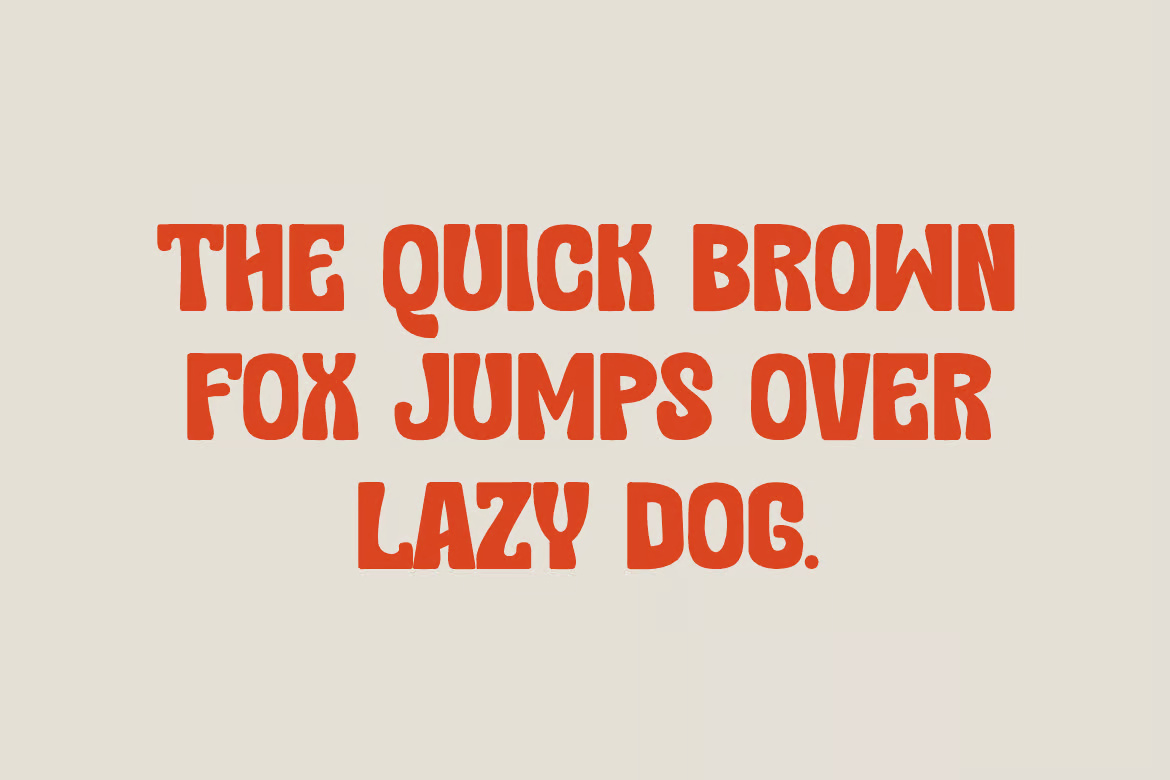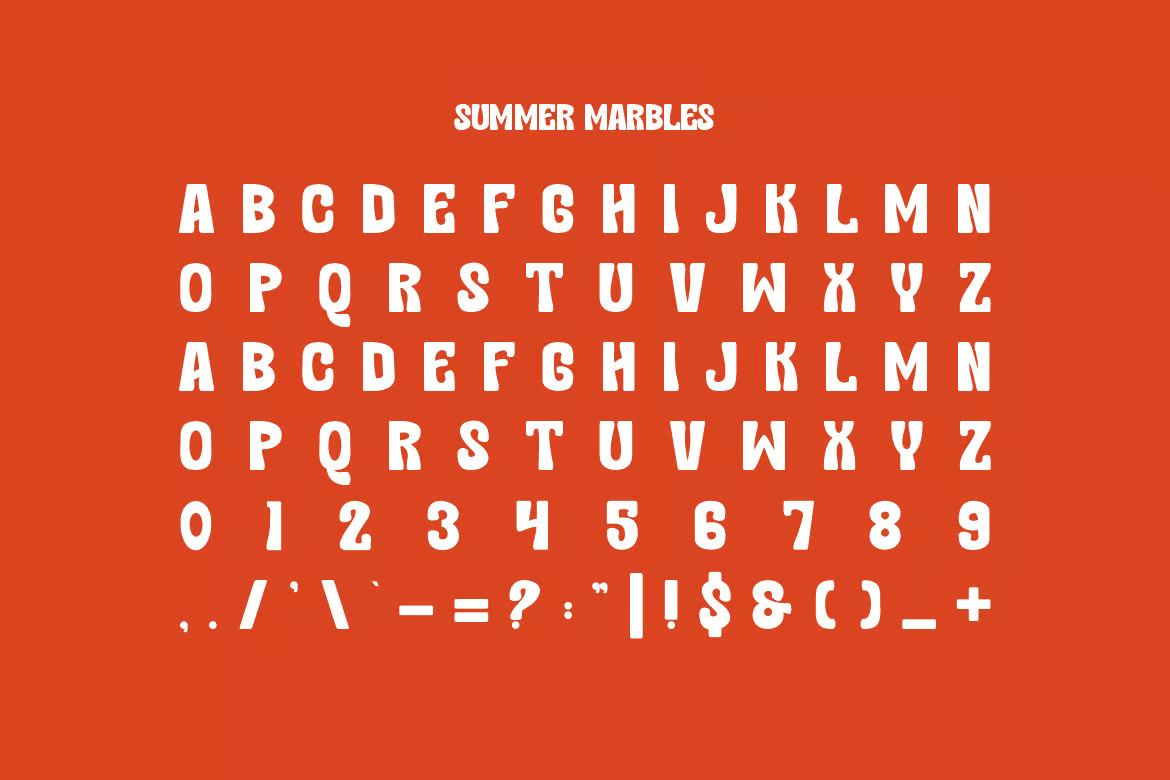
Summer Marbles – Beach & Retro Vibes Font
Summer Marbles is a bold and authentic display font, perfect for adding a unique touch to your projects. Whether you’re designing for branding, posters, social media, or any creative work, this font brings a distinctive style to your compositions.
Summer Marbles – Beach & Retro Vibes Sans-Serif Font